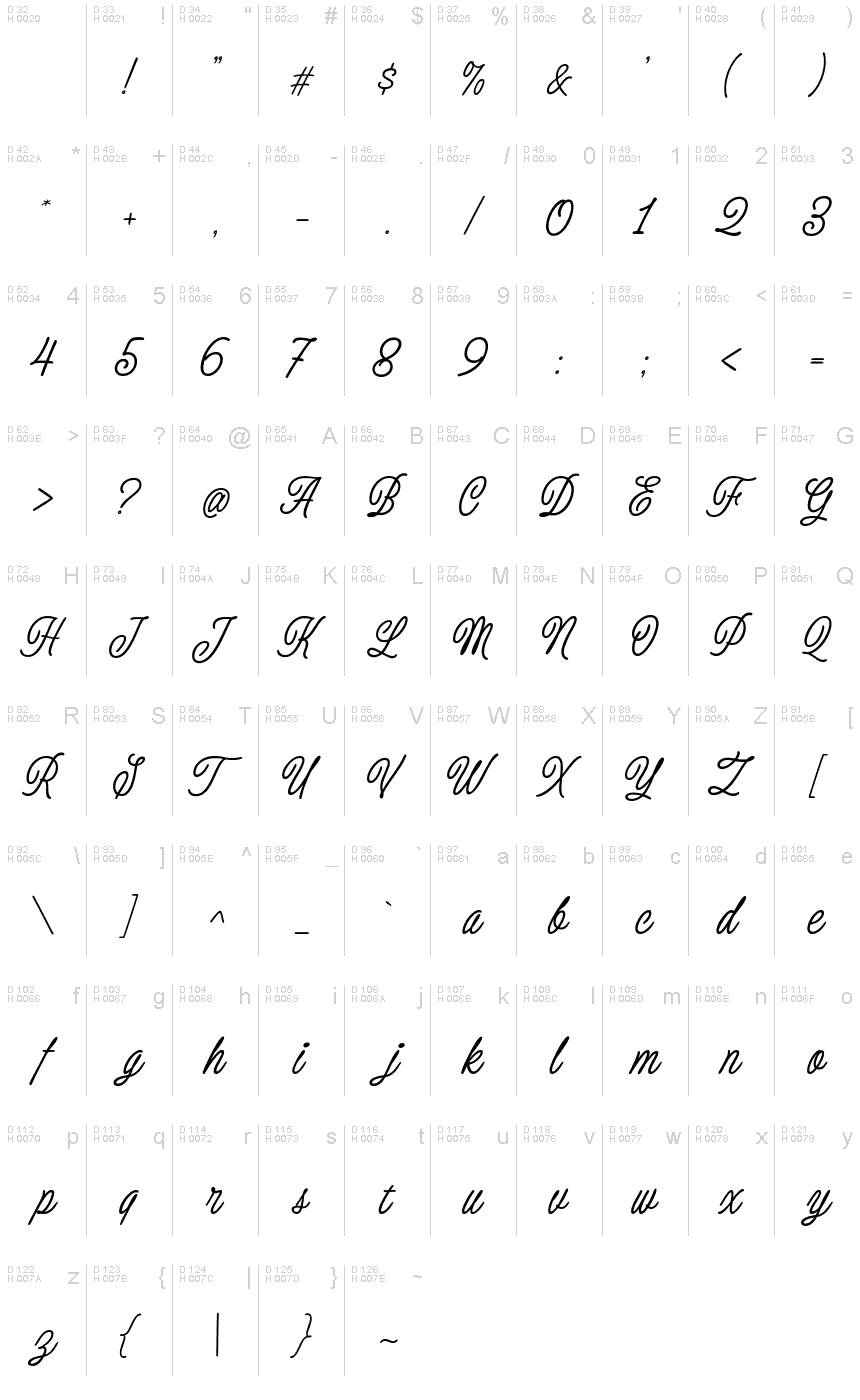
Mostergalle Regular
With its unique vintage script style, Mostergalle by Letterhend Studio is a must-have font for any designer seeking to add a touch of nostalgia to their work. Its semi-light weight and condensed width make it perfect for titles, headlines, and other prominent elements of design. Whether you're working on branding projects, packaging designs, or even wedding invitations, Mostergalle's distinct elegance will add a touch of sophistication to your work. Use it to create unique logos or headlines that stand out from the crowd. With Mostergalle in your toolkit, you'll have the perfect font for any vintage-inspired project.